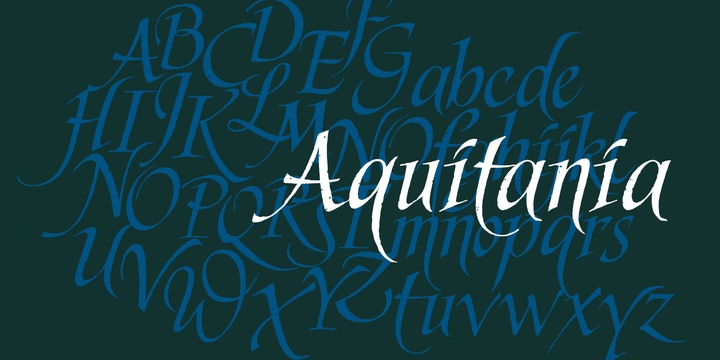
Aquitania Script Font
Aquitania Script Font is perfect for wedding invitations, luxury branding, elegant logos, premium packaging, boutique signage, calligraphy artwork, romantic designs, high-end stationery, fashion branding, and sophisticated visual communications. This graceful typeface excels in both digital and print applications requiring handcrafted elegance.
Aquitania Script Font is exciting because it captures the timeless beauty of hand lettering with flowing strokes and elegant flourishes that create romantic visual appeal while maintaining excellent readability. Its sophisticated character generates memorable brand experiences that resonate with audiences seeking luxury, romance, and artisanal craftsmanship.
The Aquitania Script Font family includes regular, bold, light, ornamental, swash, decorative, and alternates variants, providing designers with comprehensive typographic options for various design scenarios and elegant communication requirements.
Aquitania Script Font represents the pinnacle of script typography, combining classical calligraphy traditions with contemporary functionality to create letterforms that embody grace, sophistication, and timeless romance. This exquisite typeface captures the artisanal beauty of hand lettering while delivering the consistency and reliability required for professional brand communication. The font's elegant character makes it particularly valuable for luxury wedding planners, high-end fashion brands, premium beauty companies, and exclusive service providers that require typography capable of conveying refinement, romance, and artisanal excellence.
The artistic construction of Aquitania Script Font demonstrates masterful understanding of calligraphic principles, with flowing connections and elegant proportions that create natural rhythm and visual harmony in both decorative headlines and readable text applications. This sophisticated craftsmanship ensures beautiful results whether used for intimate personal communications or grand marketing campaigns requiring ultimate elegance. The font's romantic qualities make it especially effective for brands in bridal services, luxury hospitality, fine jewelry, and cultural arts that celebrate beauty and traditional craftsmanship.
Creative professionals working with Aquitania Script Font Free Download will appreciate the typeface's exceptional versatility across romantic and luxury design challenges. Its elegant styling bridges traditional and contemporary aesthetics, making it suitable for heritage luxury brands and modern premium startups requiring distinctive, memorable typography. The font's sophisticated presence makes it particularly effective for spa and wellness brands, artisanal products, cultural events, and premium lifestyle services that must communicate elegance through beautiful, inspiring visual design.
Whether developing luxury brand identities, creating romantic communications, or designing premium marketing materials, Aquitania Script Font provides the calligraphic excellence needed for communications that inspire emotion and convey premium value while maintaining sophisticated appeal and achieving distinguished market positioning across all elegant applications.